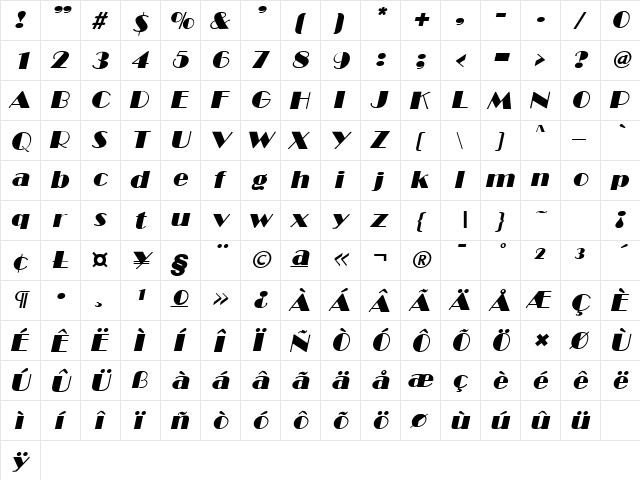
Invite SF Italic
Design Context for Invite SF Typeface
Invite SF is a composed and adaptable typeface that performs quietly and consistently across a wide range of design contexts. The slanted form adds forward momentum and visual energy.
Pro Tip: Use Invite SF for emphasis, pull quotes, and subheadings where its slanted energy can add rhythm to the layout.